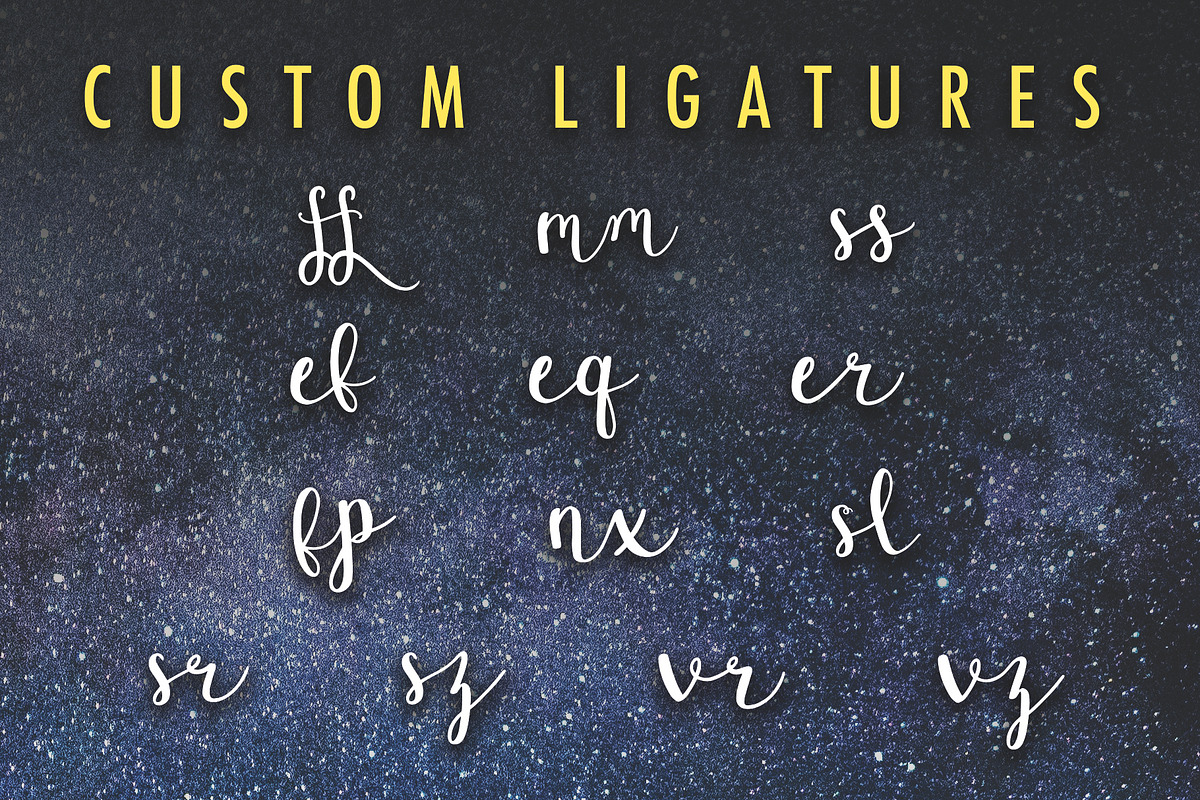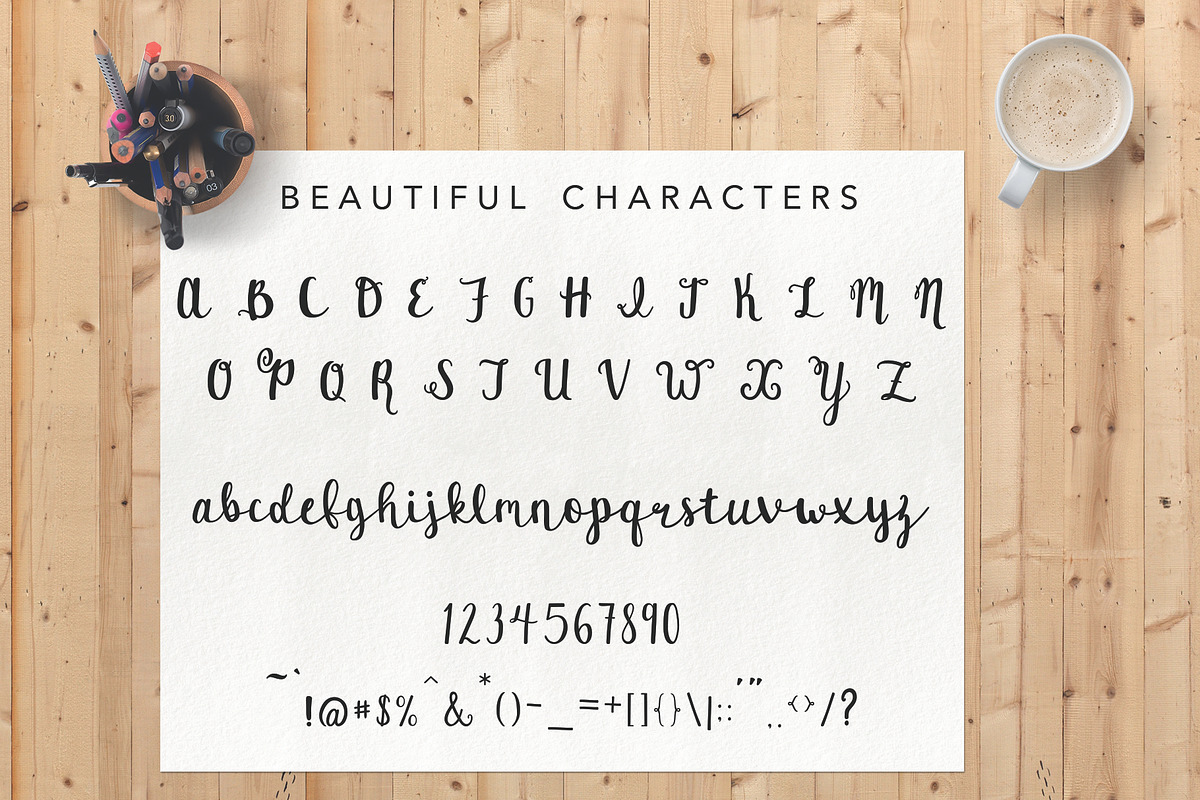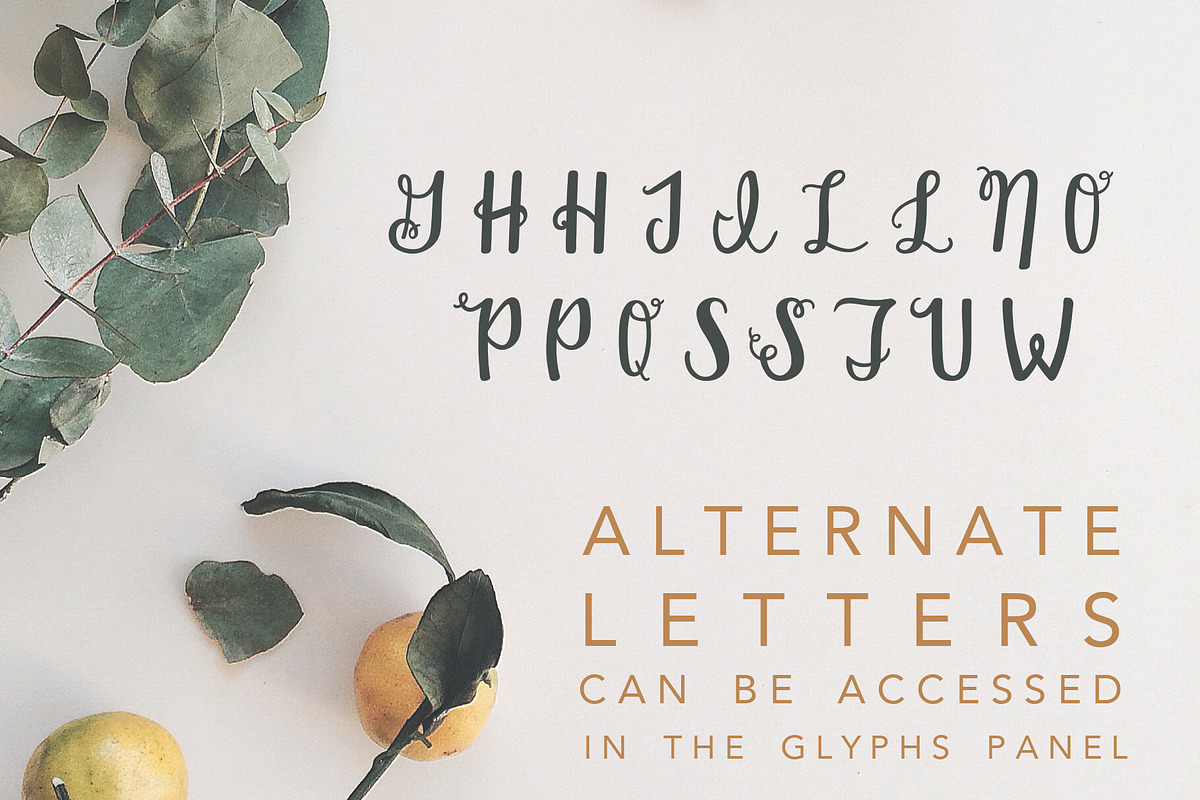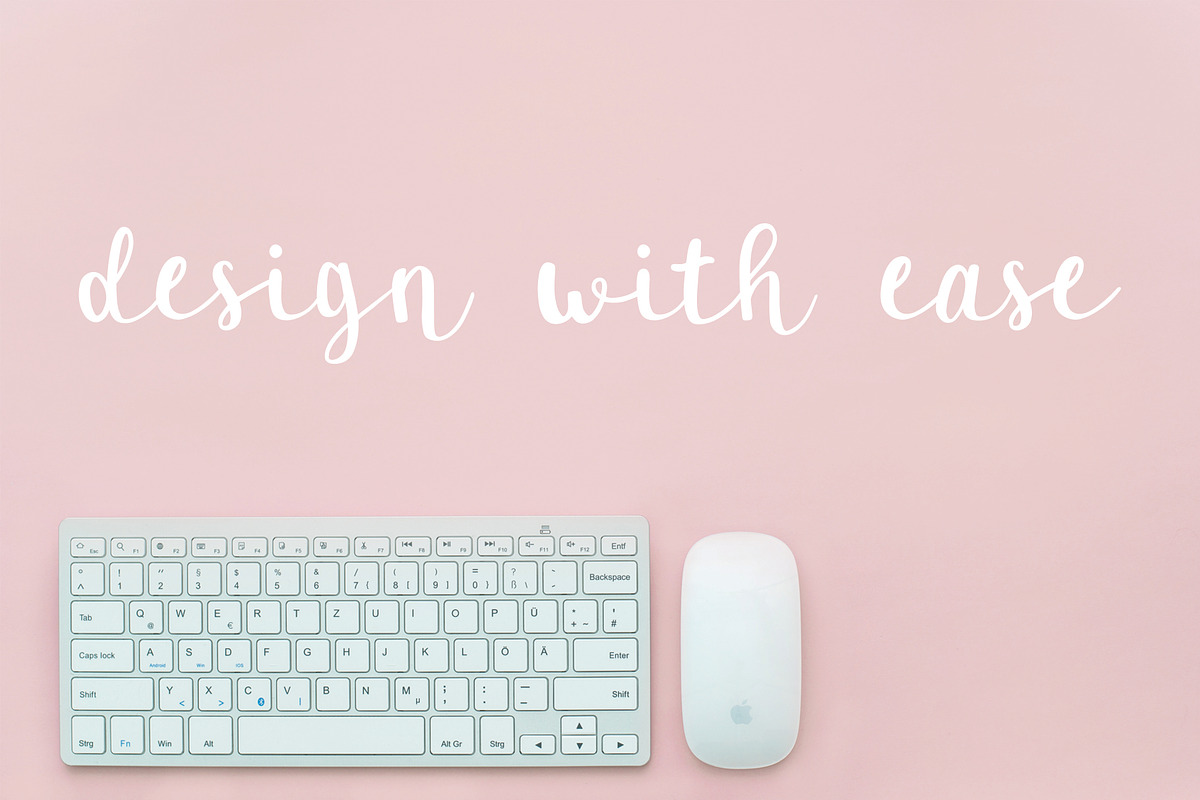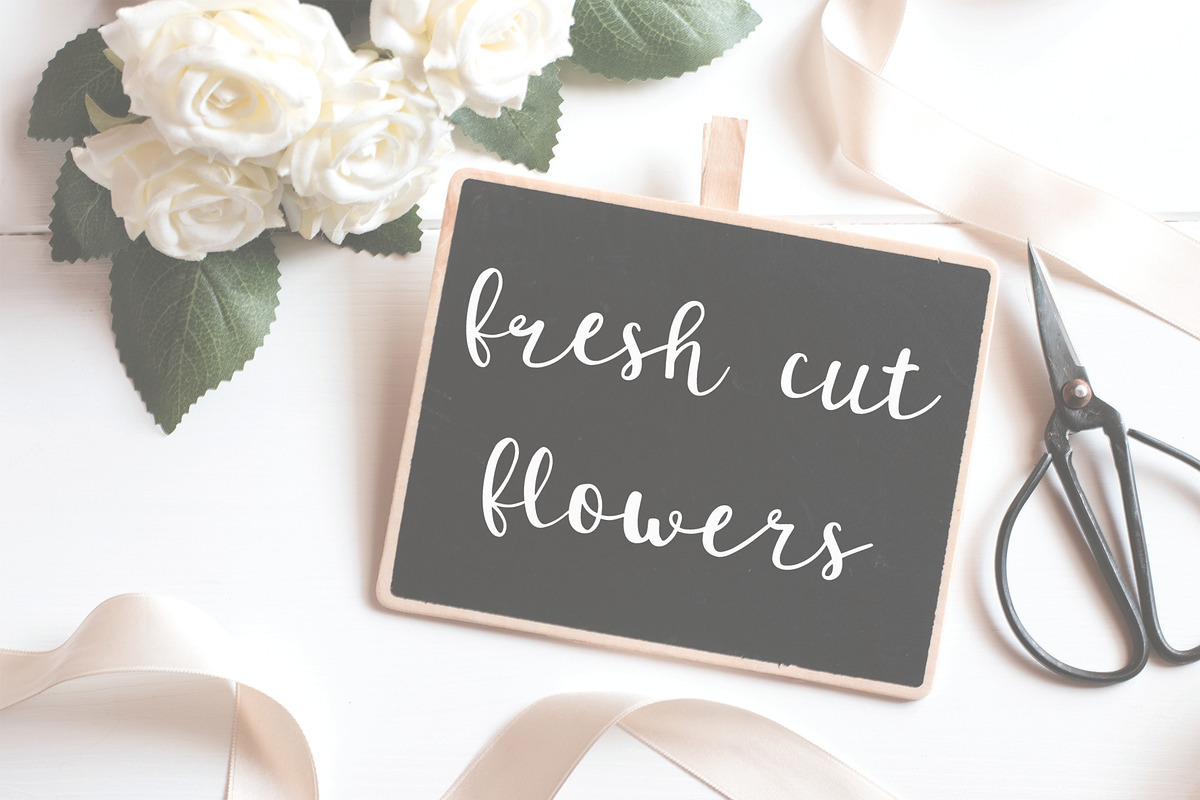
Enchanted: A Script Font
Everyone loves a beautifully crafted script font! Bring your designs to life with this carefully curated font. Enchanted can transform your wedding invitations from bland to tasteful, give logos a lavish but simple finish, and bring out the magical feeling in any design!
Enchanted incorporates exquisite custom ligatures that flow naturally into your typing.
Feel free to browse through the photographs to see the full alphabet, custom ligatures, alternate letters, and the bonus pack of vector wreaths!